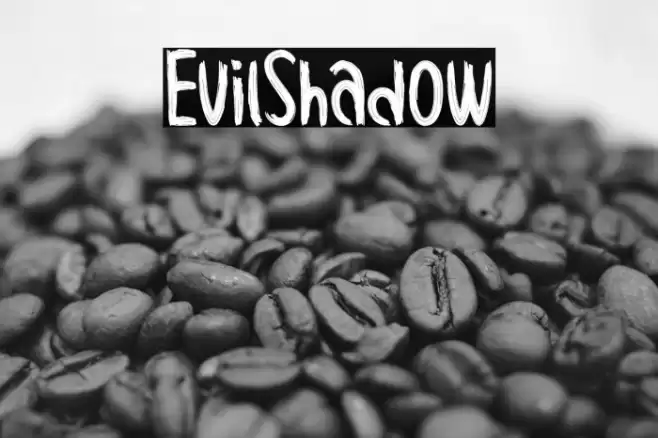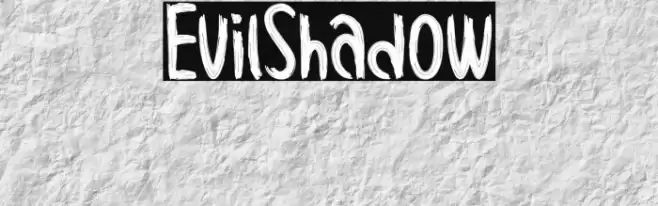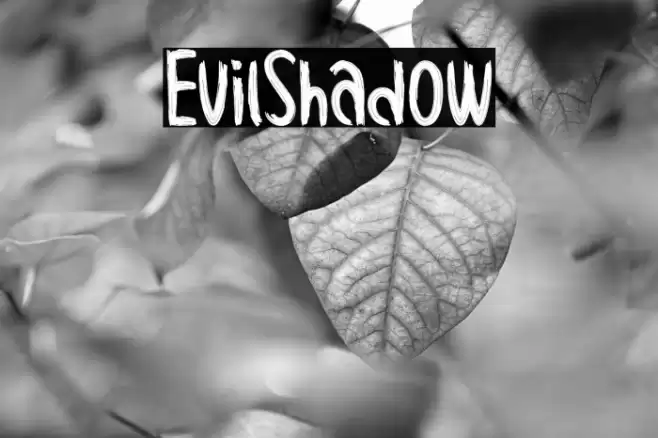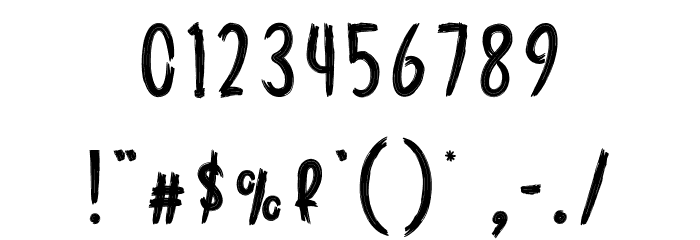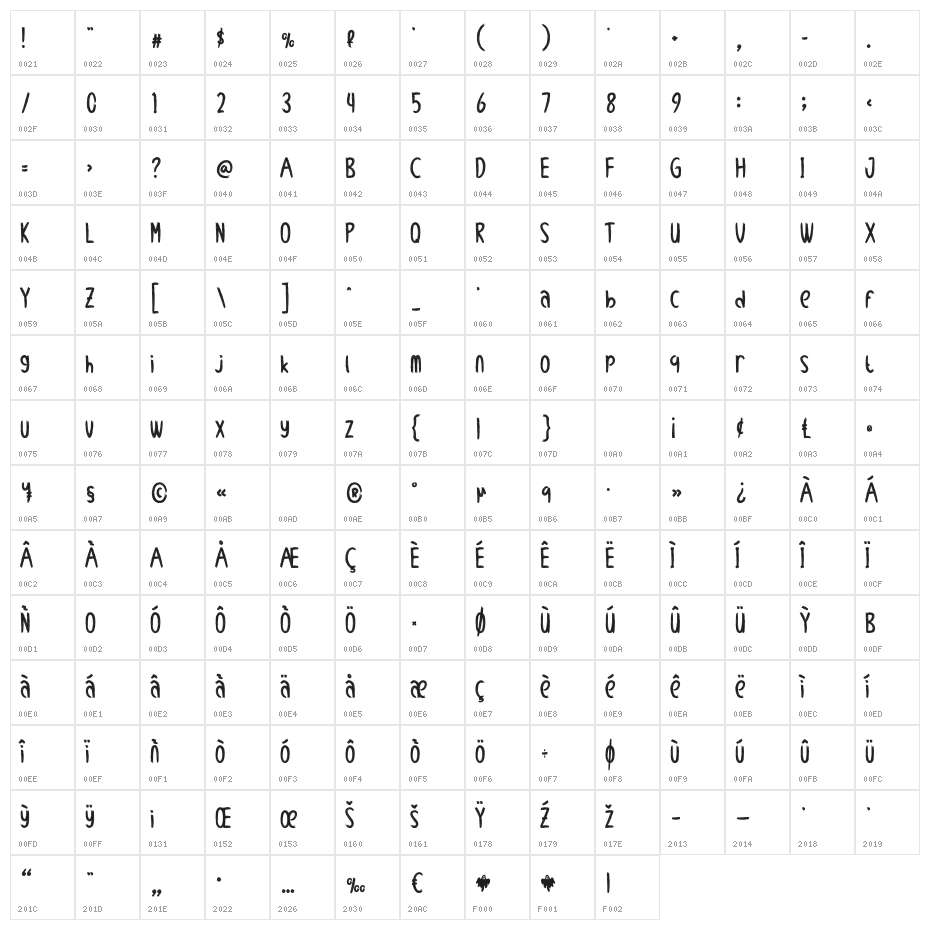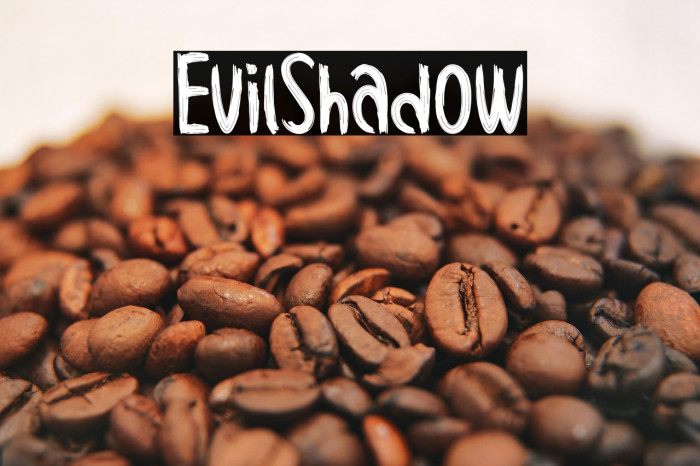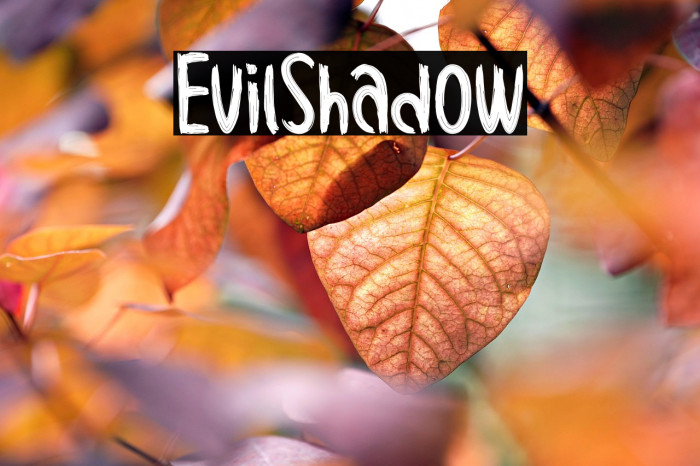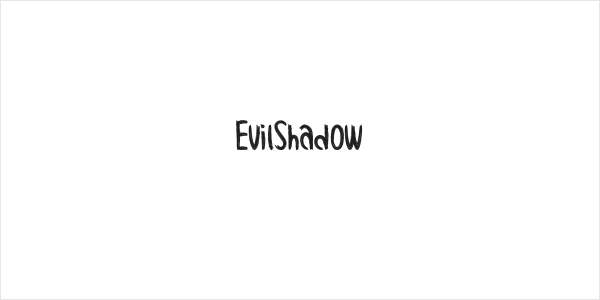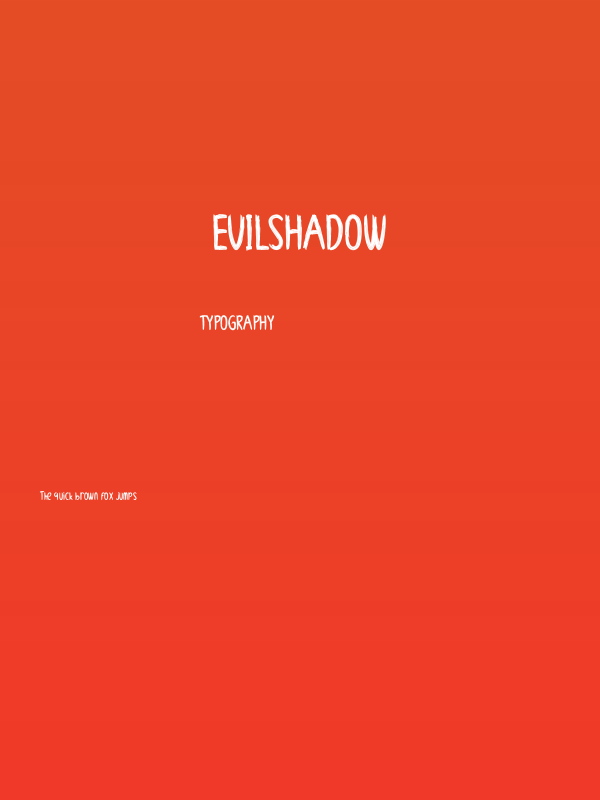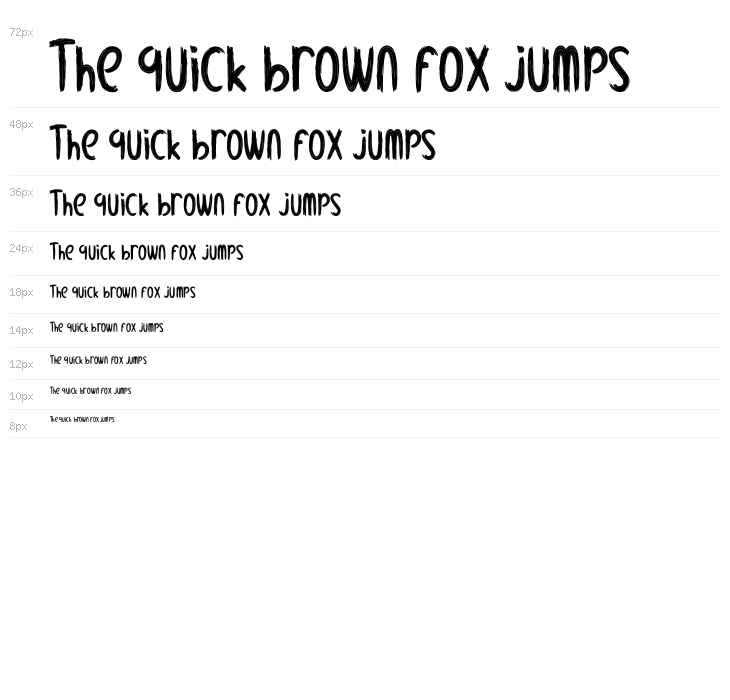
EvilShadow Font
EvilShadow Description
This font features a bold and expressive style with a hand-drawn appearance. The characters are slightly irregular, giving them a dynamic and energetic feel. The strokes are thick and uneven, adding a sense of movement and personality to the text. The uppercase and lowercase letters maintain a consistent style, with rounded edges and a playful touch. Numbers and special characters follow the same design, ensuring a cohesive look across all elements. This font is perfect for projects that require a bold statement and a touch of creativity.
A bold, hand-drawn font with an expressive and dynamic style from Uncategorized fonts.
- Proposed Projects: Ideal for posters, logos, comic books, and creative branding projects.
- Overall Style: Decorative
- Use Case: Headlines, Logos